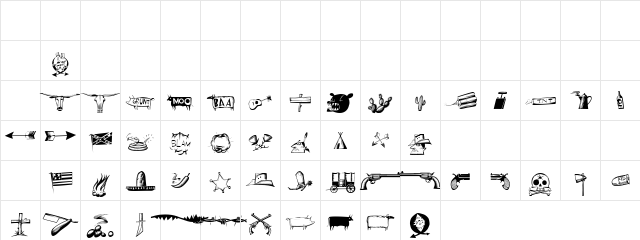
Complete WayOutWest Critters glyph index. Displaying only characters natively supported by WayOutWest Critters font.
WayOutWest is a composed and adaptable typeface that performs quietly and consistently across a wide range of design contexts.